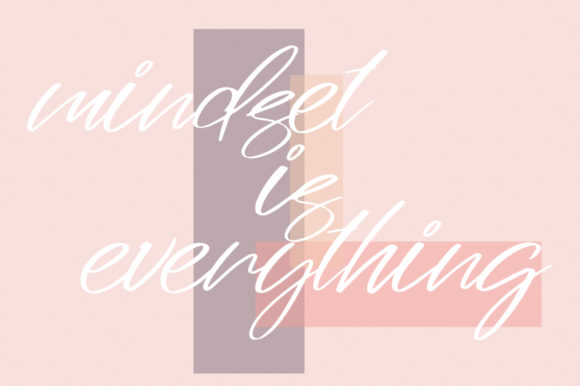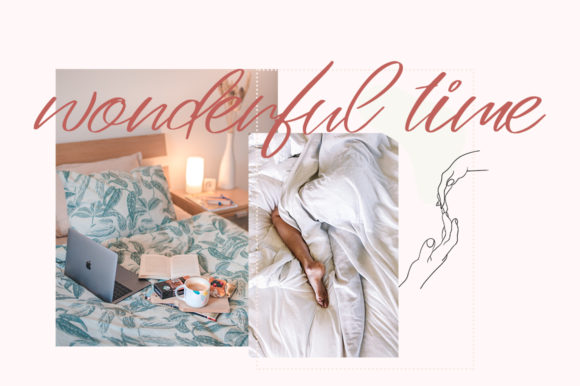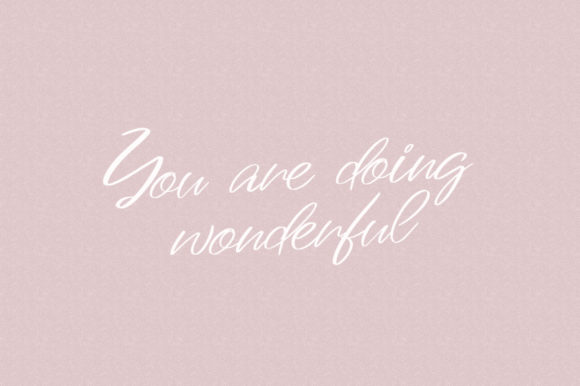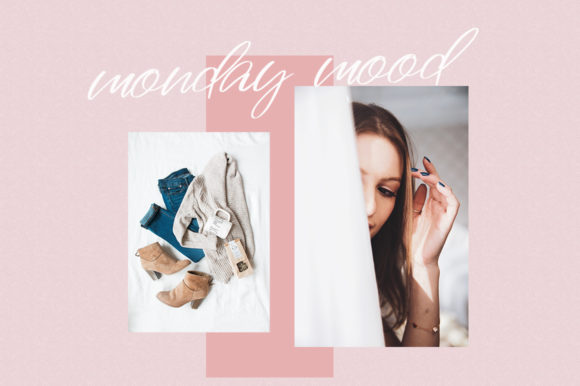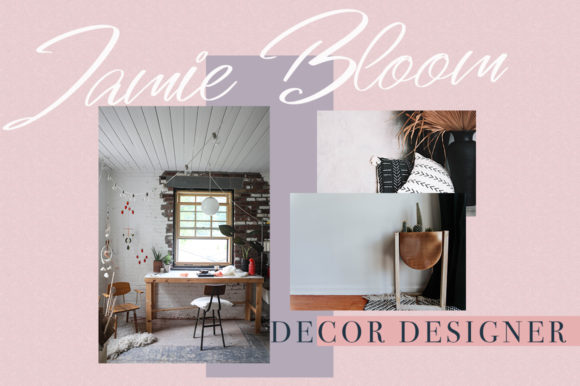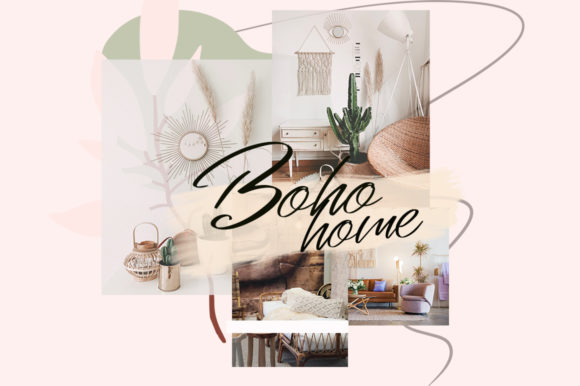
Introduction to Euphoria Font
Have you ever been working on a creative project, pouring your heart and soul into every detail, only to feel like something’s missing? The perfect font can be the missing piece that takes your design from ordinary to extraordinary. For designers, finding that elusive perfect font can be a game-changer, elevating their work to new heights and setting it apart from the rest.
That’s where the Euphoria Font comes in – a stylish and incredibly elegant script font that’s about to become your new go-to design resource. Whether you’re creating wedding invitations, thank you cards, or logos, this high-quality font adds a touch of sophistication and whimsy that’s sure to captivate your audience.
But what really sets Euphoria Font apart is its versatility – and the fact that it’s available for free download, complete with a transparent background, making it the perfect addition to any creative project.
Key Features of Euphoria Font
- High-quality, stylish design perfect for creative projects
- Optimized for high-resolution printing and digital displays
- Designed with a modern aesthetic, ideal for a variety of design projects
- Includes a wide range of characters and glyphs for versatility
Honest Review: Euphoria Font
I recently had the chance to work with the Euphoria Font, a popular design resource among creatives. The font’s high quality and versatility make it a great addition to any project. I was particularly impressed with its ability to be used in a variety of settings, from headings to body text.
One of the standout features of the Euphoria Font is its transparent background, which allows for seamless integration with other design elements. This feature was a game-changer for my current creative project, and I was able to achieve a clean and polished look with minimal effort.
- High-quality design that translates well to various mediums
- Transparent background for easy integration with other elements
- Excellent for headings and body text
- May not be suitable for extremely small text sizes
- Could benefit from more font weight options
Overall, I’m impressed with the Euphoria Font and would recommend it to fellow designers. Its high-quality design and transparent background make it a valuable resource for any creative project. While it may have some limitations, I believe the benefits far outweigh the drawbacks.
The Euphoria Font is a high-quality design resource perfect for creative projects that require a unique touch. With its transparent background, this font can be easily integrated into various design platforms.
Tips for Getting the Most Out of Euphoria Font
To get the most out of the Euphoria Font, consider the following tips:
- Use it sparingly to create a bold statement.
- Combine it with other fonts for a unique look.
- Experiment with different font sizes and colors.
The Euphoria Font is perfect for:
- Designing social media graphics.
- Creating eye-catching advertisements.
- Adding a touch of elegance to presentations.
Alternatives to Euphoria Font
Compared to Euphoria Font, Great Vibes Font has a more classic and timeless feel, making it suitable for a wide range of design applications. While Euphoria Font is more playful and modern, Great Vibes Font is ideal for projects that require a sense of tradition and elegance.
Dancing Script Font is a beautiful, high-quality script font that’s perfect for creative projects that require a touch of whimsy and fun. It’s ideal for use in branding, social media graphics, and other design resources where a playful look is essential. Dancing Script Font offers a transparent background, making it easy to customize and layer with other design elements.
Compared to Euphoria Font, Dancing Script Font has a more energetic and lively feel, making it suitable for projects that require a sense of movement and playfulness. While Euphoria Font is more modern and sleek, Dancing Script Font is ideal for projects that require a sense of fun and creativity.
Does the Euphoria Font have a transparent background?
Yes, the Euphoria Font has a transparent background, making it ideal for use on images or graphics with a background. This feature allows you to easily combine the font with other design elements, giving you more creative freedom for your project.